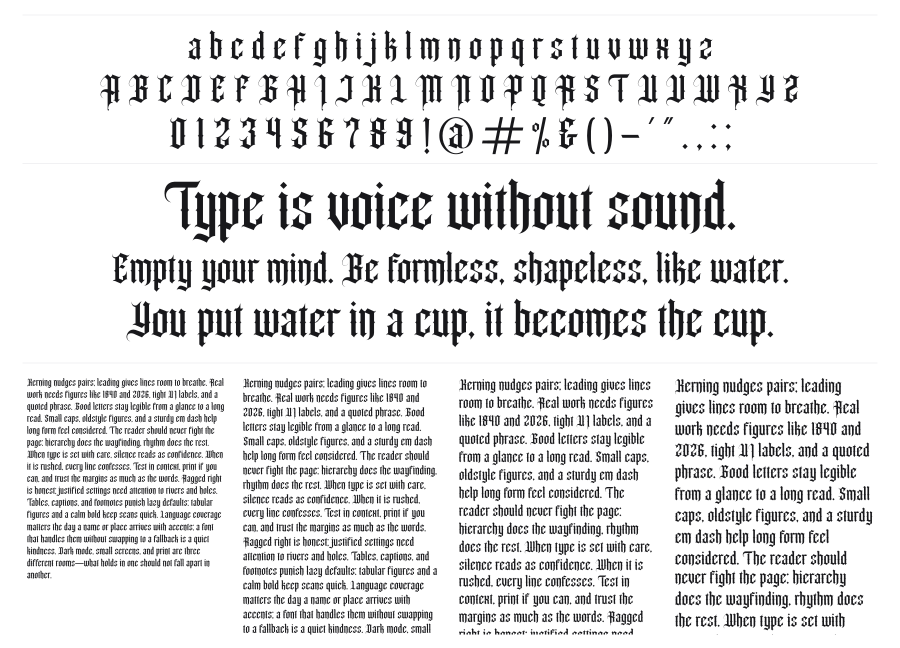
Angel Wish
Angel Wish is a bold blackletter Gothic with heavy stems, sharp diamond terminals, and the dense visual weight of medieval manuscript tradition. The high-contrast strokes and angular construction give it an imposing, dramatic presence at large sizes. It draws from classic Fraktur and Textura structures while feeling contemporary enough for metal, streetwear, and editorial use.